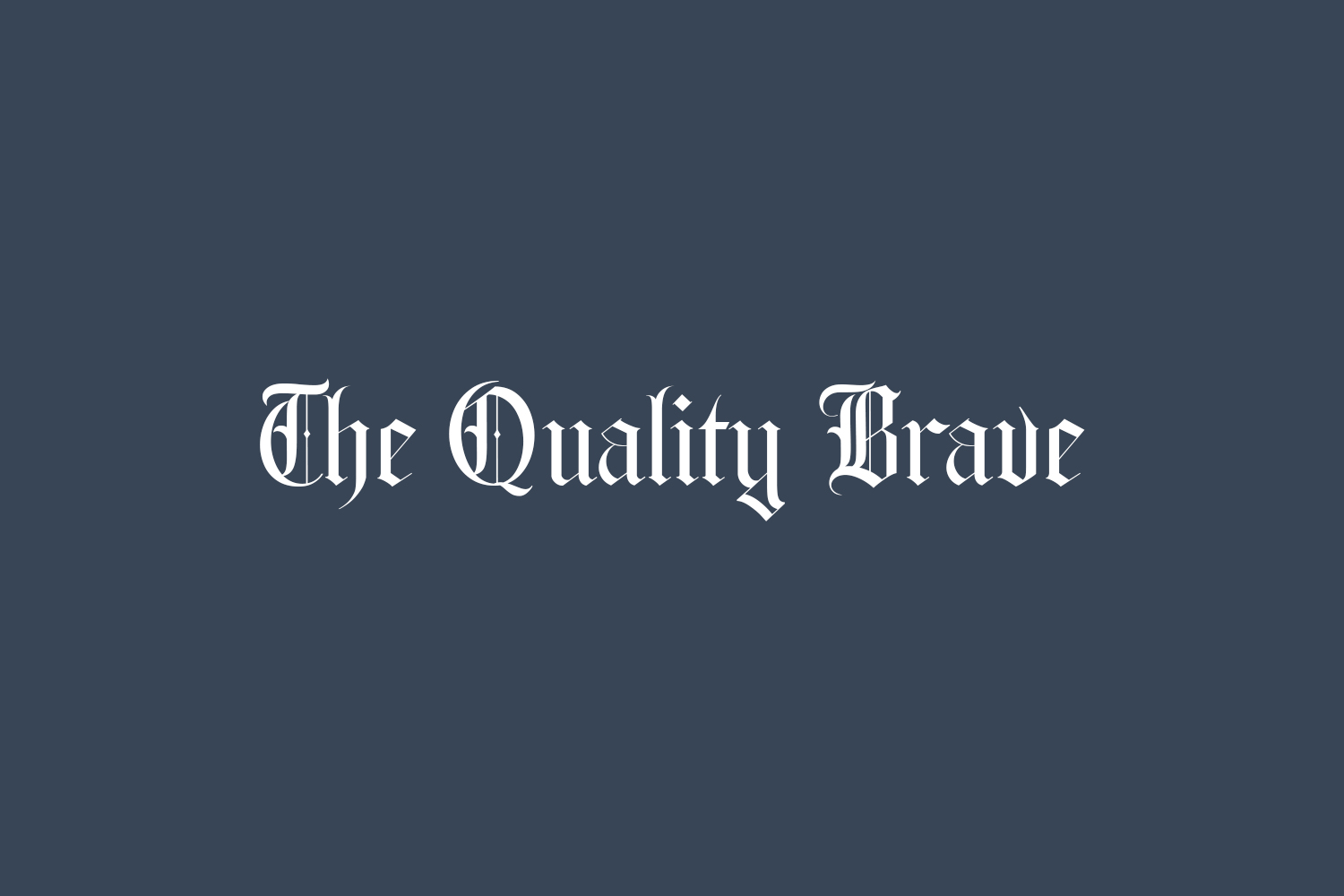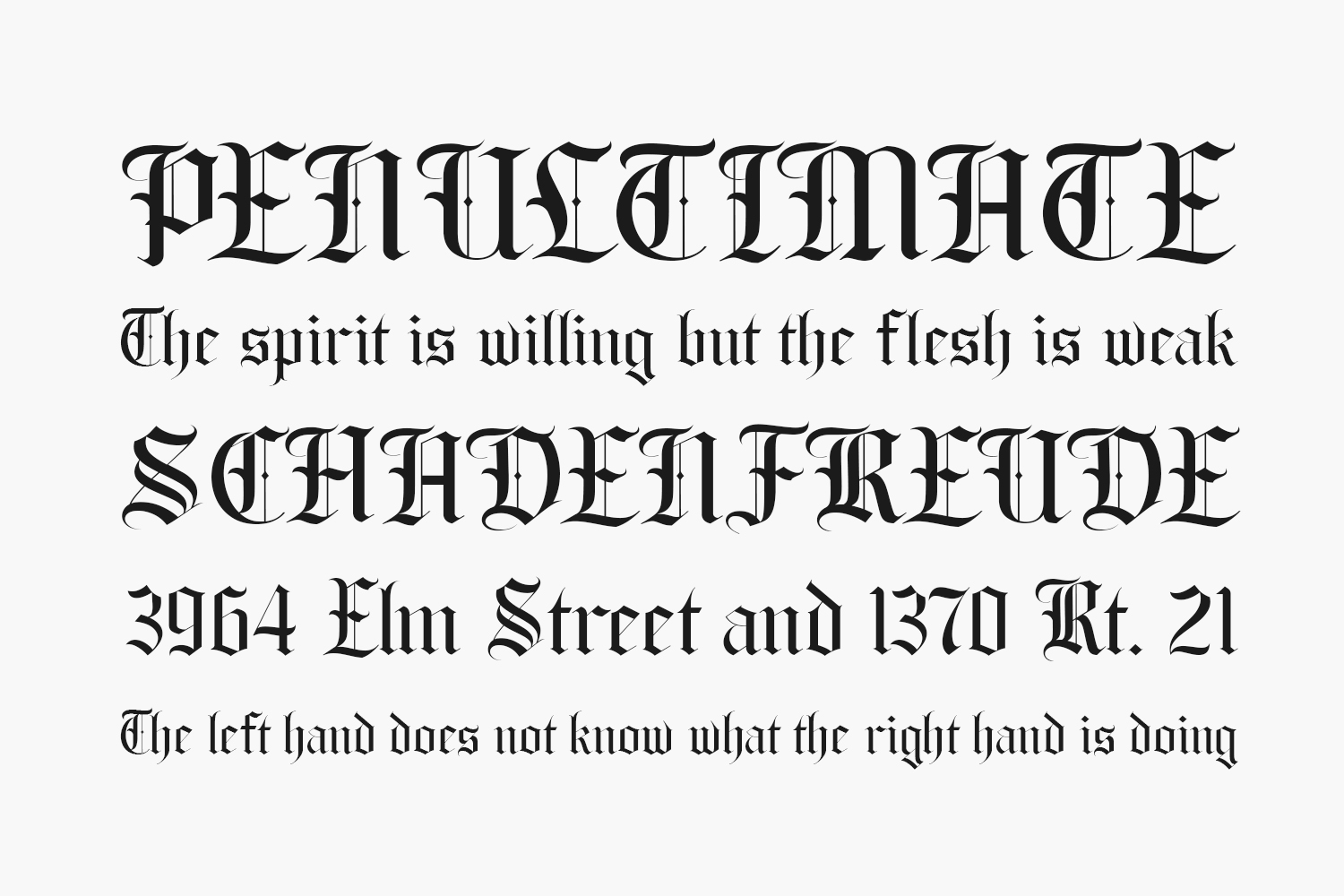
The Quality Brave Free Font is a stylish and highly detailed blackletter font. It works great on labels, branding, logos, and more. The Quality Brave Free Font is free for personal use only. Please purchase the full version for commercial use.
Designed by Alit Design